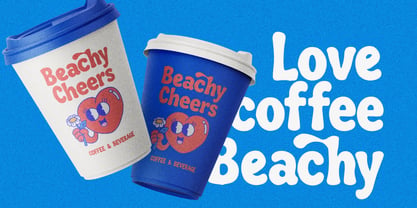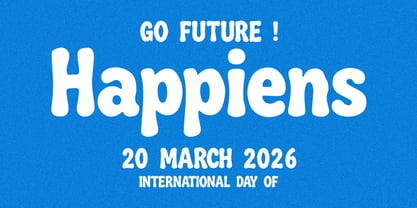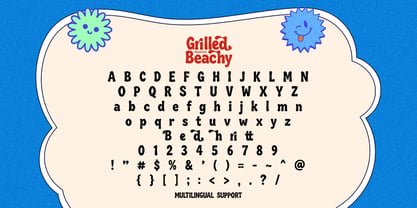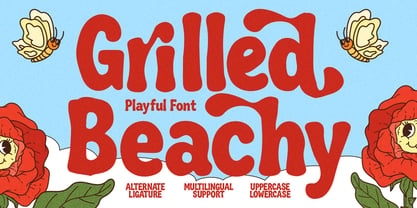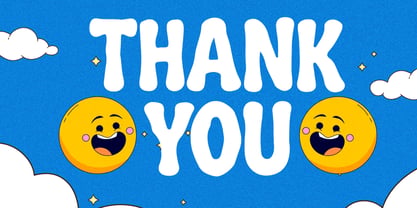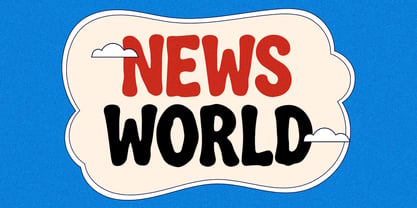
Grilled Beachy
by Maulana Creative
The Grilled Beachy Font Family was designed by Gilang Maulana and published by Maulana Creative. Grilled Beachy contains 1 styles. More about this family
Discover a vibrant and energetic font designed for bold statements. Grilled Beachy is a groovy retro display face that brings a fun, lighthearted feel to any project, inspired by sunny vibes. This unique typeface features cheerful letterforms with distinctive wavy shapes, perfect for catching eyes in headers, logos, social media posts, and creative branding.
It provides extensive layout options with full uppercase and lowercase sets, along with special alternate characters and creative ligatures to enhance visual flow. Fully supporting multiple languages, this versatile font ensures global accessibility while maintaining its playful aesthetic. Enhance packaging designs, website visuals, or any high-impact display with the nostalgic charm of Grilled Beachy.
Designers: Gilang Maulana
Foundry: Maulana Creative